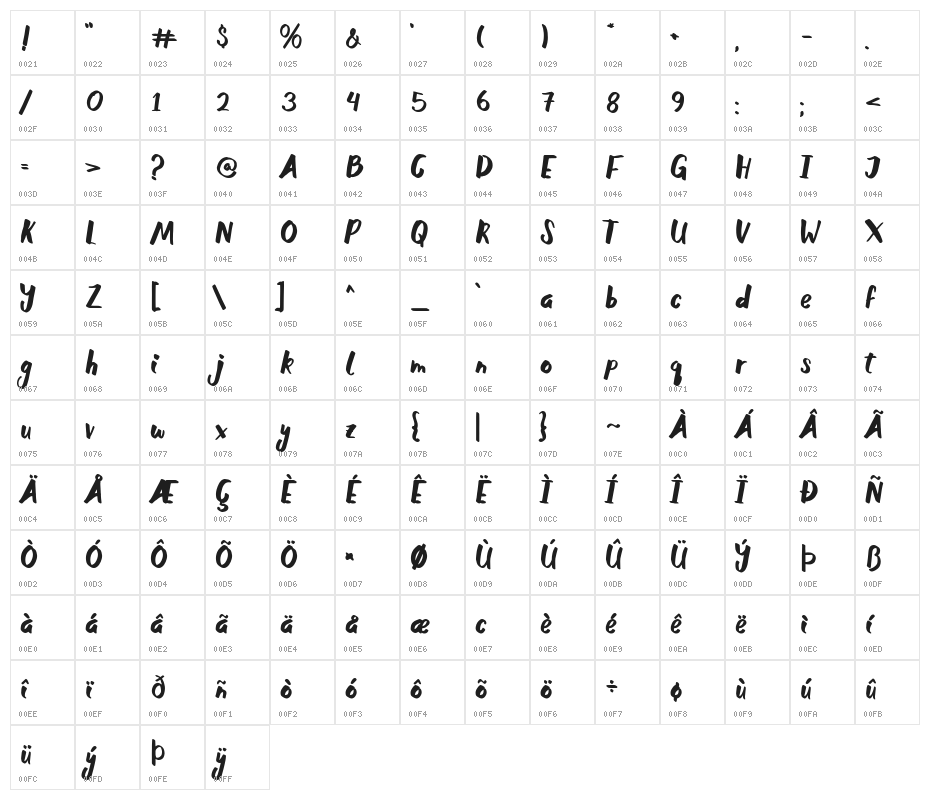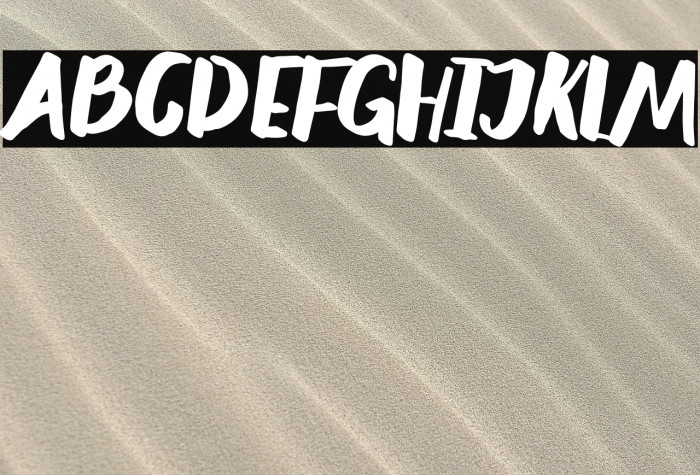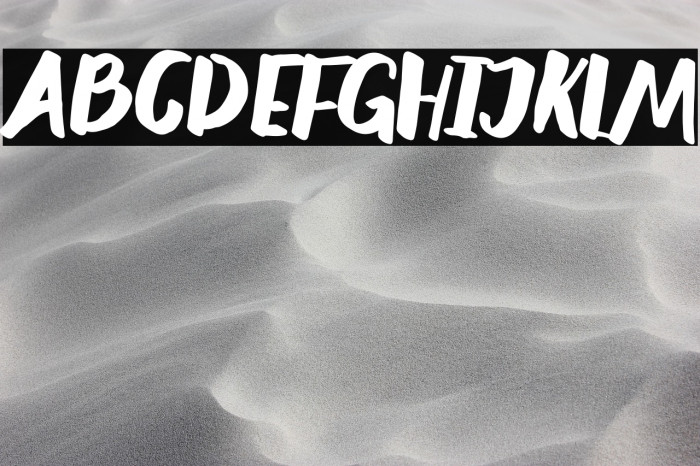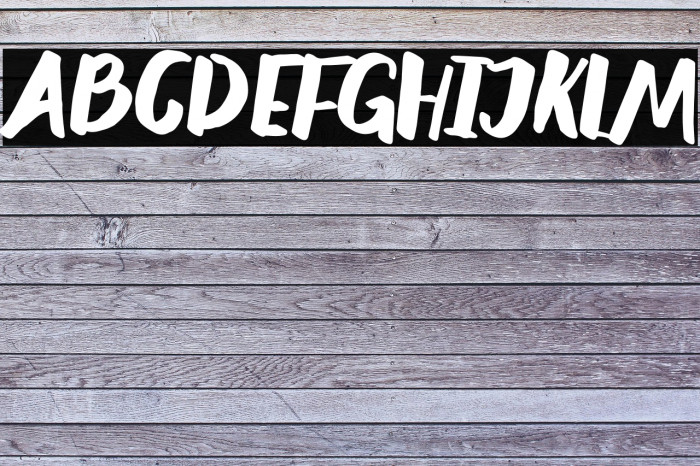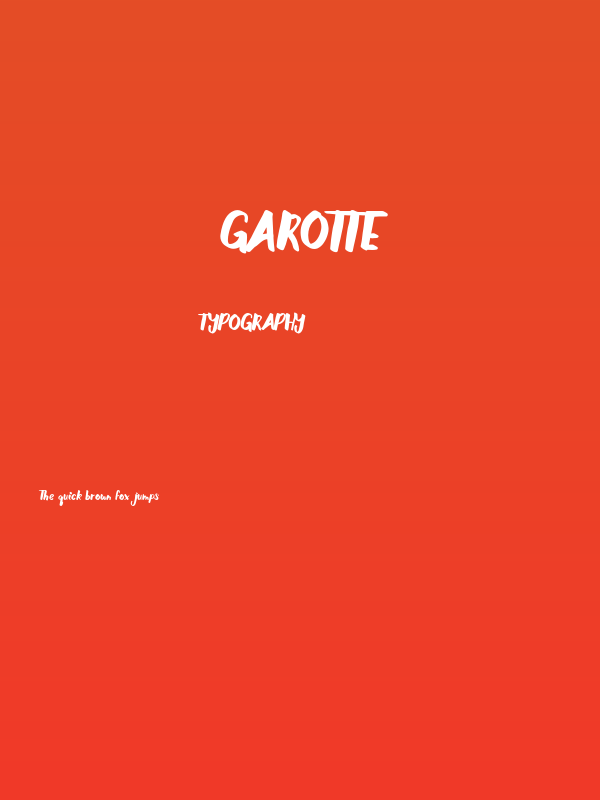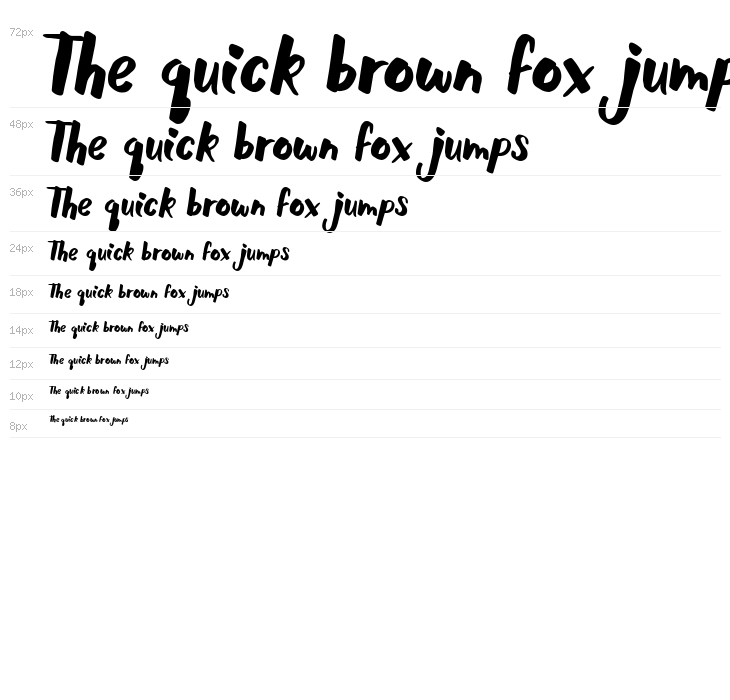
Garotte Font
Garotte Description
This font features a bold and expressive style with a hand-painted appearance. The characters are dynamic and slightly irregular, giving a sense of movement and energy. The uppercase letters are bold and commanding, while the lowercase letters maintain a playful and casual feel. The numbers and special characters are consistent with the overall style, making them suitable for creative and artistic projects. The strokes are thick and have a high contrast, enhancing the boldness of the font. This font is ideal for projects that require a strong visual impact and a touch of creativity.
| Proposed Projects | Ideal for posters, branding, packaging, and any project needing a bold artistic touch. |